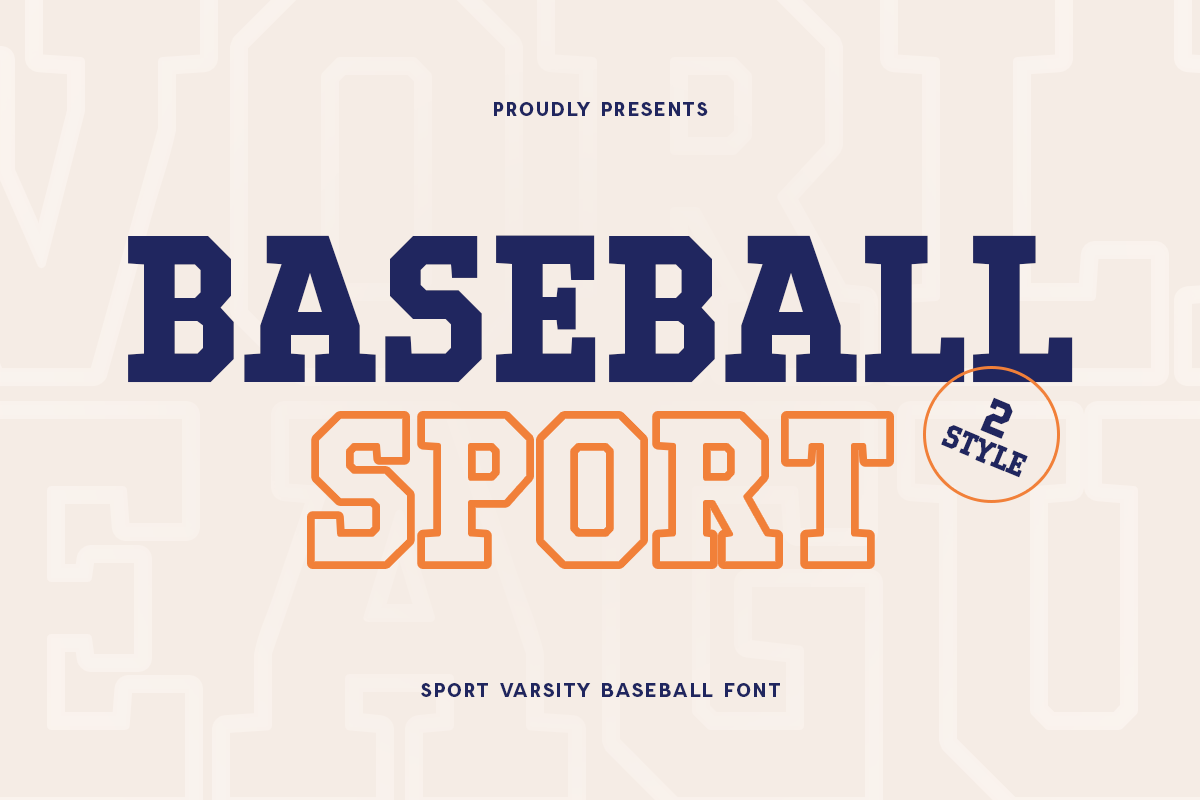
Baseball Sport Font Free Download is a bold varsity-style typeface inspired by classic American sports culture. With strong block lettering and athletic energy, this font is perfect for team jerseys, sports branding, event posters, school spirit graphics, and merchandise design.
Its collegiate look brings nostalgia and excitement to any project, capturing the dynamic vibe of baseball and varsity aesthetics. Whether you're creating a logo for a local team or designing apparel for fans, Baseball Sport delivers a winning visual impact. Baseball Sport Font Free Download gives you the chance to try it in personal projects before purchasing a commercial license.
Step up your game with Baseball Sport — a varsity font that hits a home run every time.